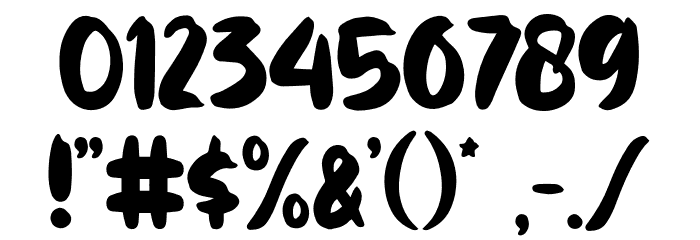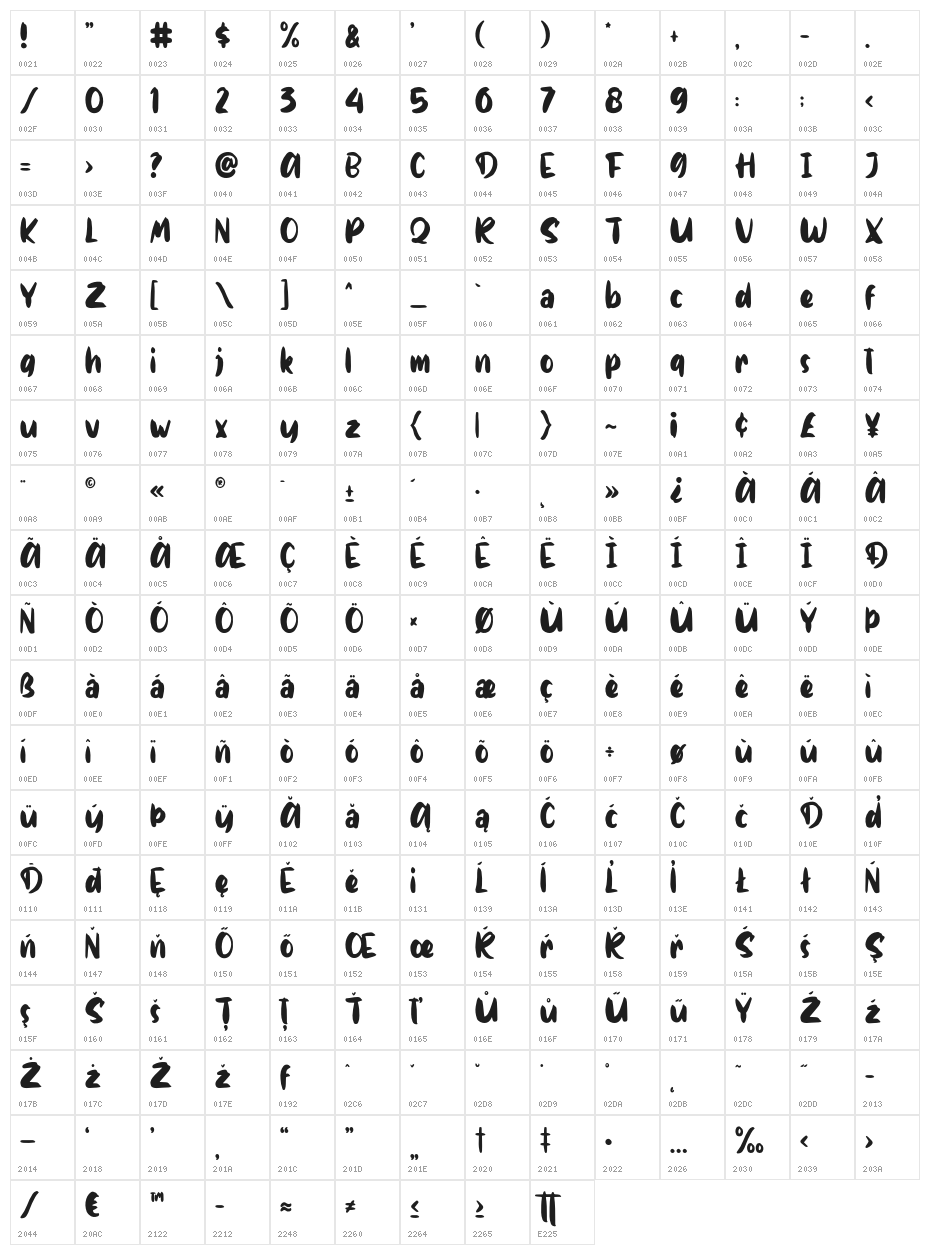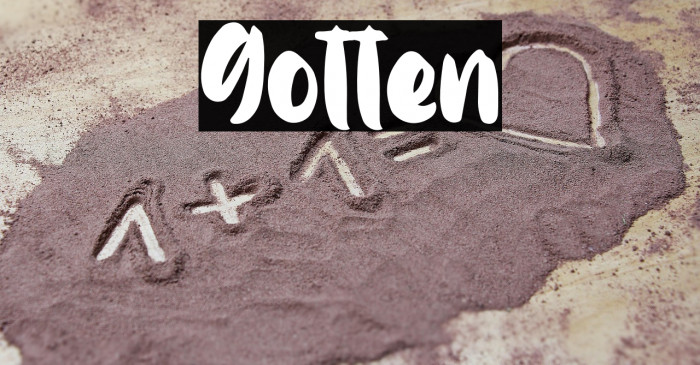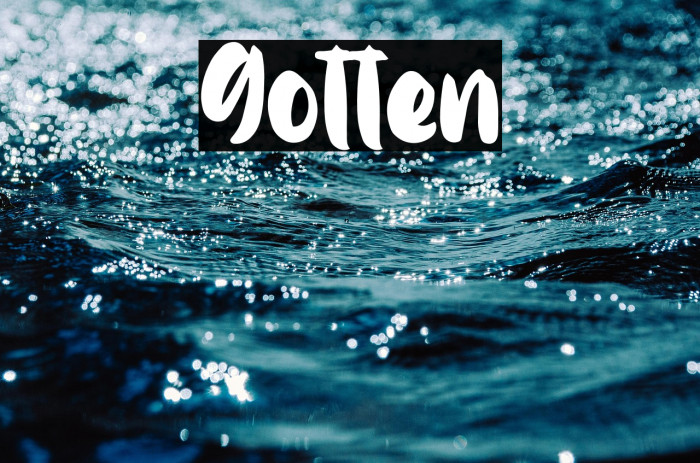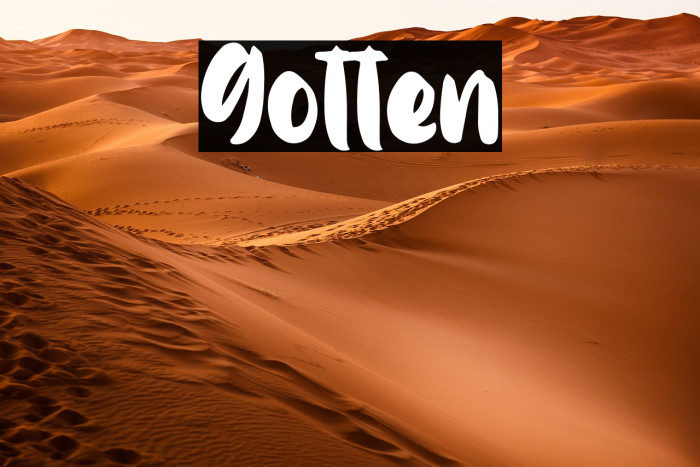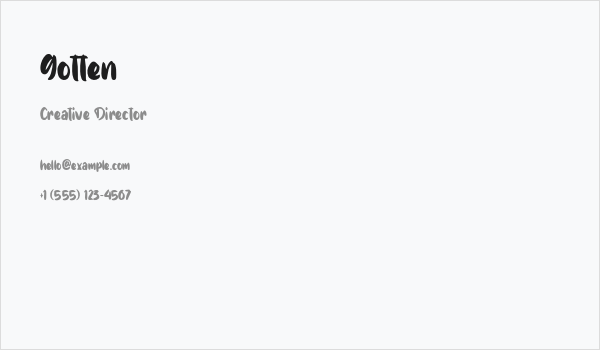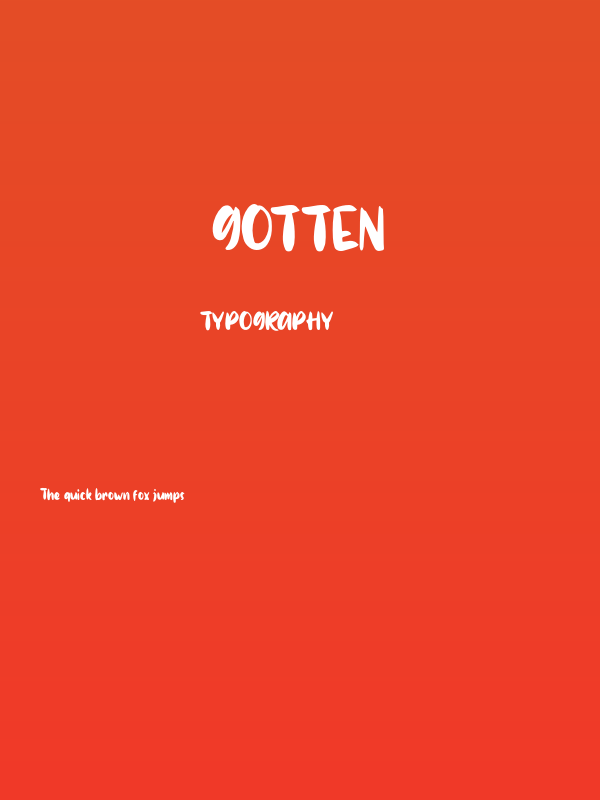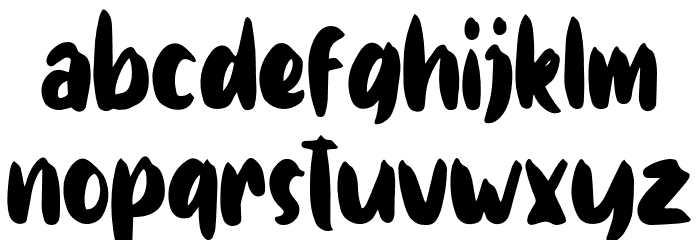
Gotten Font
Gotten Description
This font features a bold and dynamic handwritten style, characterized by thick, rounded strokes and a playful, energetic appearance. The letters have a slightly irregular form, giving them a casual and informal feel. The uppercase and lowercase letters maintain a consistent weight, contributing to a cohesive look. The numbers and special characters follow the same stylistic approach, ensuring uniformity across all glyphs. This font's lively and approachable design makes it suitable for projects that aim to convey a sense of fun and creativity.
| Proposed Projects | Ideal for children's books, playful branding, casual invitations, and creative posters. |